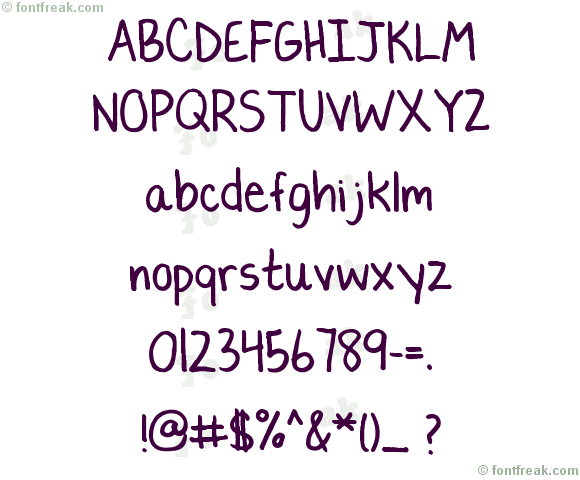
Lauren C. Brown
About Lauren C. Brown
The Lauren C. Brown font, crafted by Starlight Fonts in November 2000, is a charming handwritten typeface that effortlessly combines warmth and personality. This freeware font features a casual, organic style that mimics the fluidity of human handwriting, making it an excellent choice for a variety of creative projects. The strokes exhibit a moderate weight with soft contrasts, allowing for clear readability while maintaining a friendly aesthetic. The spacing is balanced, ensuring that each letter flows seamlessly, enhancing its inviting character.
This font is particularly well-suited for wedding invitations, where its informal yet elegant look can add a personal touch. Additionally, it works beautifully for greeting cards, making those heartfelt messages feel even more special. Small business owners can utilize the Lauren C. Brown font for branding, especially in artisanal or boutique contexts, where a unique, handcrafted feel is essential. It also shines in restaurant menus, where it can evoke a cozy, welcoming atmosphere that draws customers in. Content creators will find the font valuable for social media graphics, providing a distinctive flair that stands out in crowded feeds.
The target audience for the Lauren C. Brown font includes graphic designers, small business owners, and content creators who are seeking a unique typeface that conveys authenticity and approachability. Its versatility allows it to adapt to various design needs, making it a must-have in any designer's toolkit.